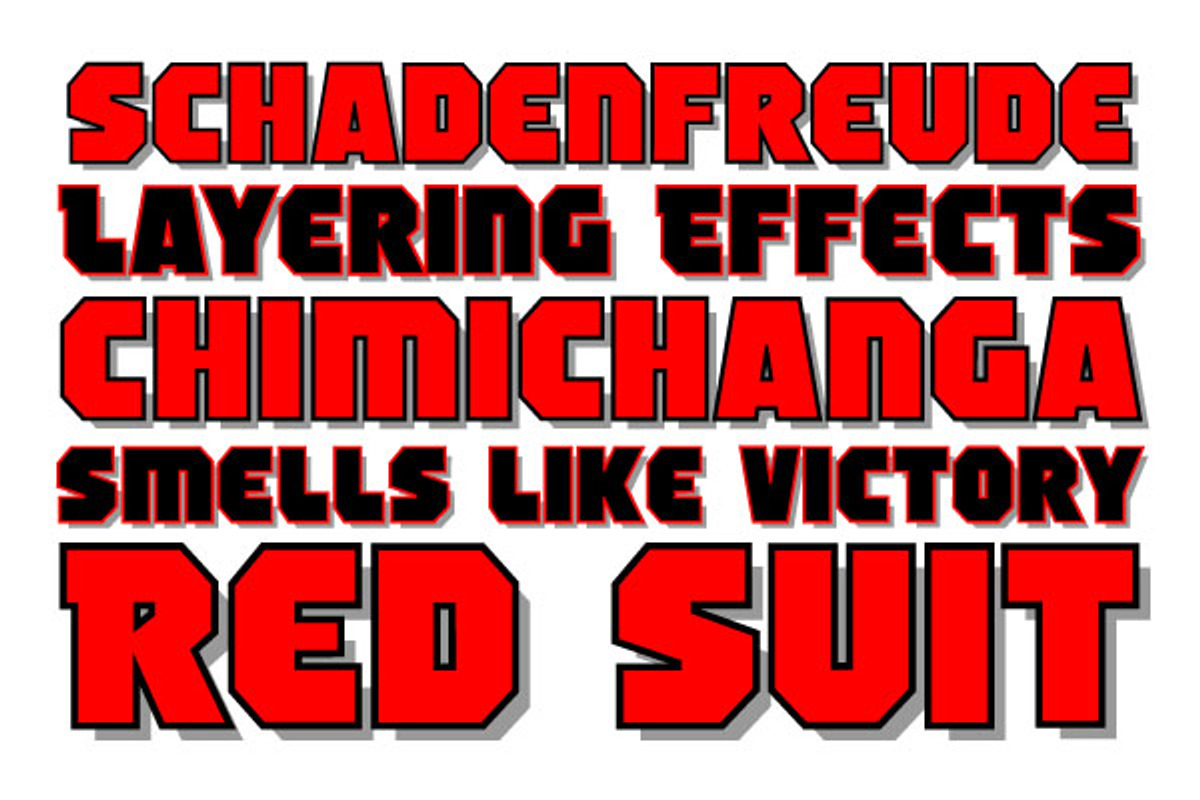
Schadenfreude
Schadenfreude by Comicraft Fonts is a font selected for branding, posters, packaging, typography.
Why Schadenfreude is worth a look
Schadenfreude by Comicraft Fonts fits naturally into Branding, posters, packaging, typography.